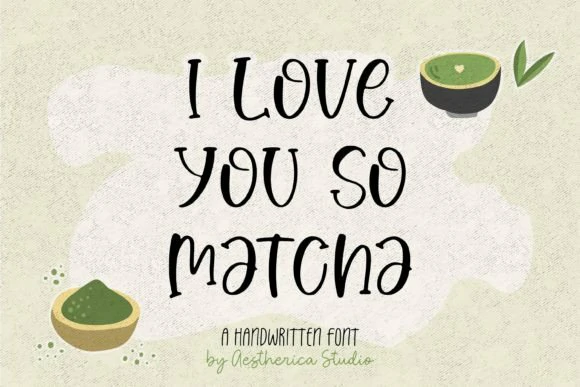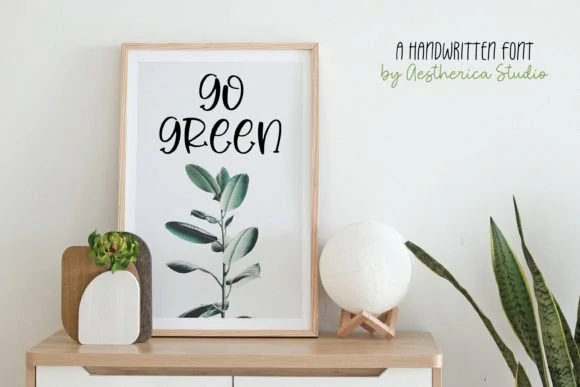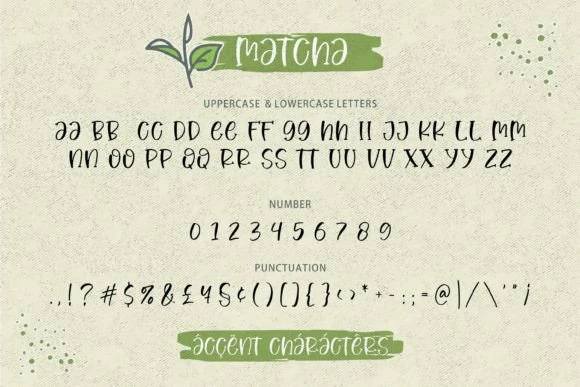
Matcha is a charming handwritten font designed with soft, cute strokes that bring a friendly and creative feel to your work. Its unique style makes it stand out, whether you’re working on a personal project or something more professional. The playful and elegant look of Matcha can instantly add warmth and personality to your designs.
This font is a great choice for a wide variety of uses. From photography watermarks to social media content, Matcha gives your words a stylish and eye-catching touch. It also works beautifully in advertisements, logos, branding materials, and invitations—adding a human, handcrafted vibe that feels welcoming and original.
Whether you’re designing for weddings, product labels, stationery, or special event promotions, Matcha helps your message look polished yet personal. Its versatility and charm make it a must-have font in any designer’s toolkit. Bring your creative vision to life with the sweet and expressive strokes of Matcha.